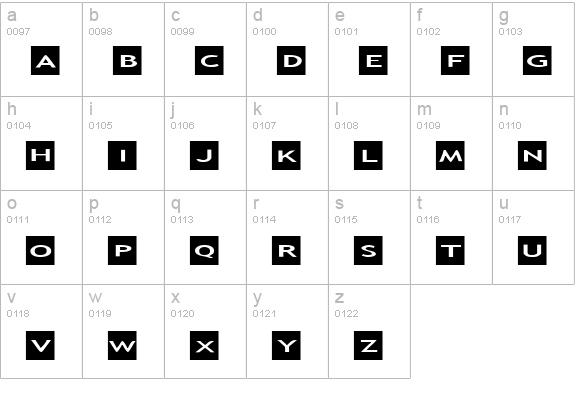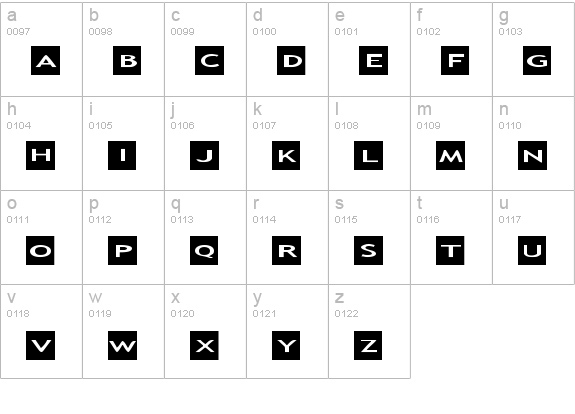
The AlphaShapes squares font is a modern and versatile typeface that features crisp, clean lines and perfectly proportioned square shapes. This font is perfect for creating eye-catching designs that demand attention and convey a sense of order and precision. With its geometric aesthetic and timeless appeal, AlphaShapes squares font is a must-have for designers looking to add a touch of sophistication to their projects. Best of all, this font is available for free download at FontsMarket.com! Whether you're working on a branding project, poster design, or website layout, AlphaShapes squares font will help you achieve a polished and professional look without breaking the bank. Don't miss out on this fantastic opportunity to enhance your design toolbox with this high-quality, freely available font. Download it today and start creating stunning visuals that stand out from the rest.